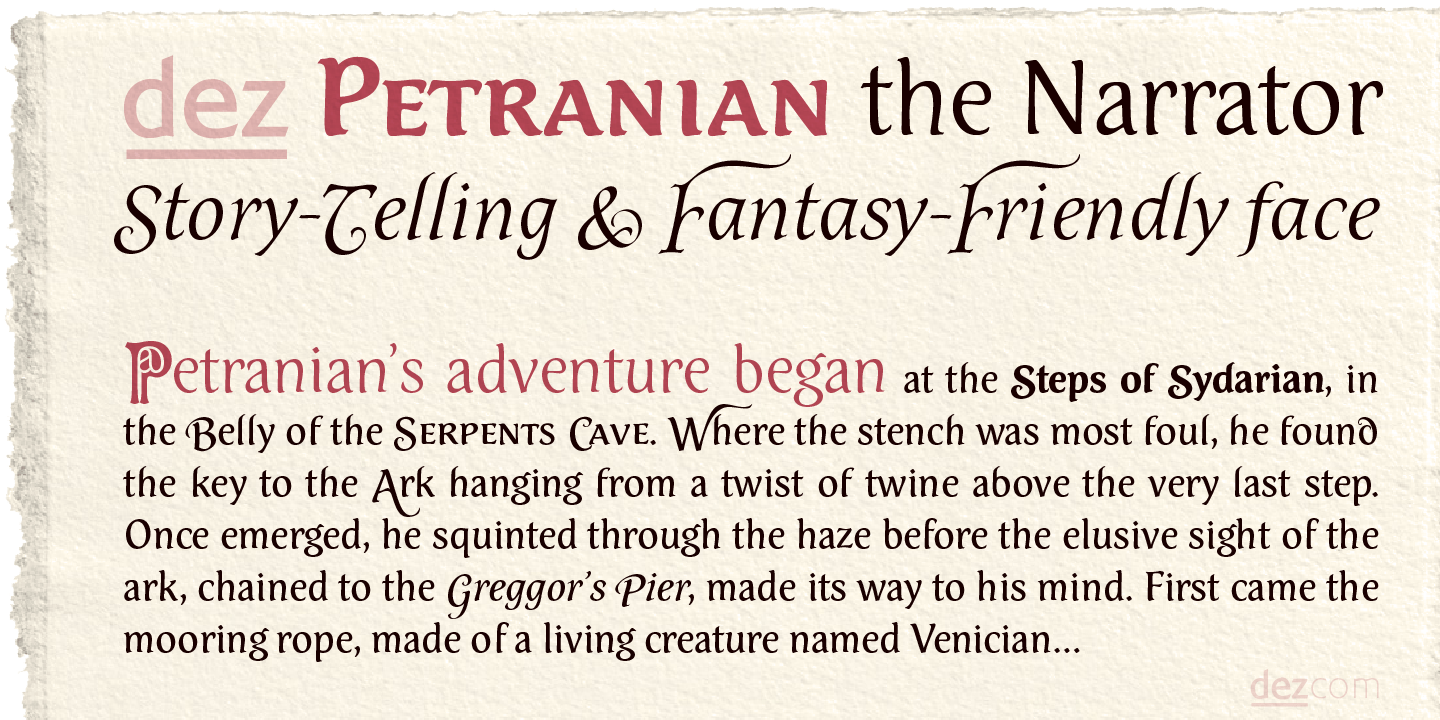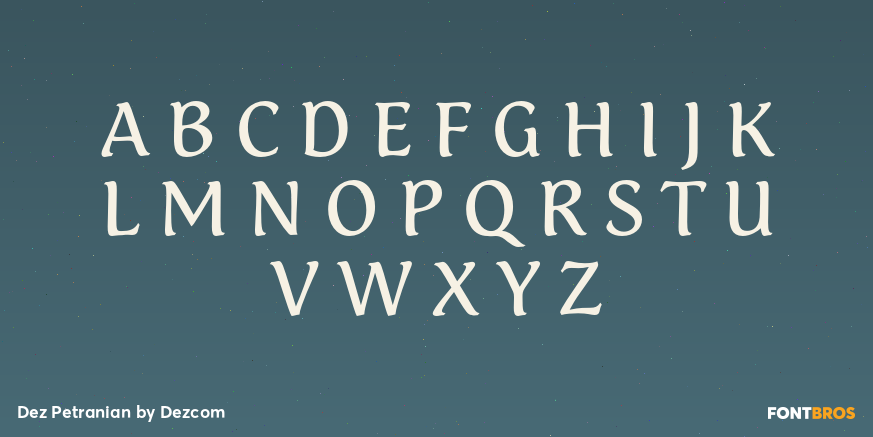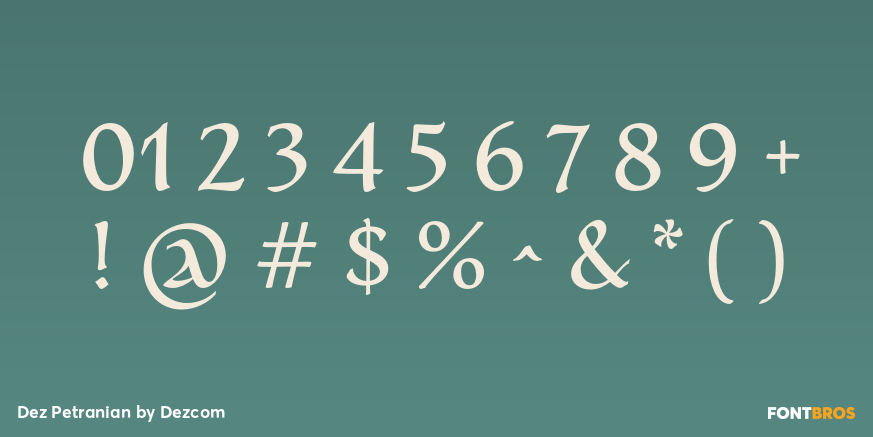
Dez Petranian
Font Family by Dezcom
Dez Petranian is a story-telling fantasy friendly family of fonts. It is a warm face that looks like the spoken word, perfect for tall tails, fantasy-world adventure books, creative writing, and poetry. Dez Petranian includes multiple language support, nearly 1,200 glyphs, stylistic sets, and many alternates. Think of it as a warm souvenir of real story writing.